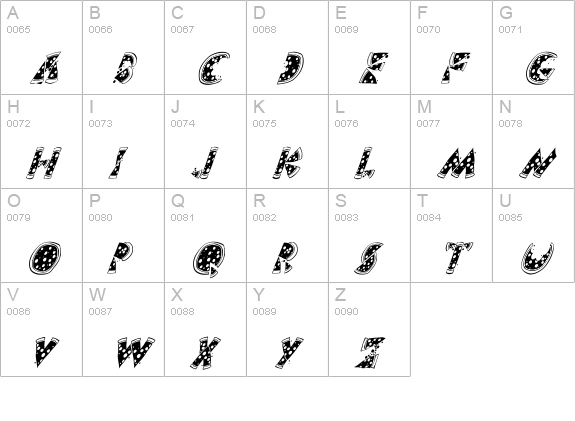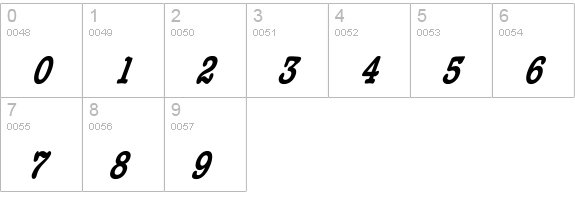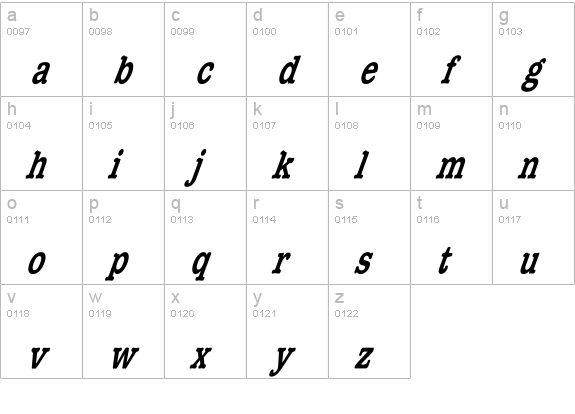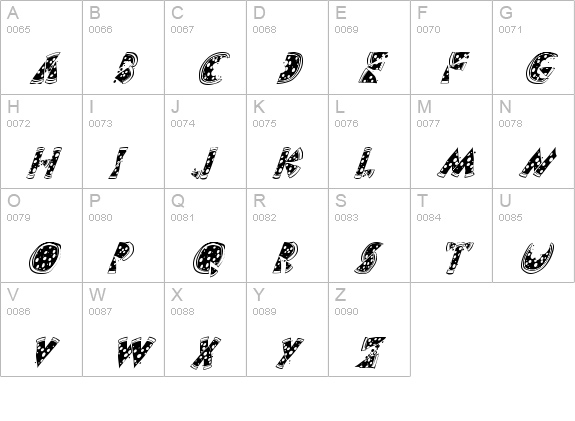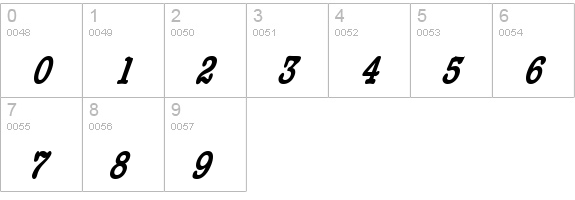
KAPizzaMunch Font Details
Introducing KAPizzaMunch, a delectable font that will satisfy your typographic cravings! This mouthwatering font is perfect for adding a touch of creativity and playfulness to any design project. Its unique and quirky letterforms will make your words pop off the page, leaving a lasting impression on your audience. KAPizzaMunch is more than just a font; it's an experience. With every letter, you can almost taste the cheesy goodness and feel the crispy crust of your favorite pizza. Each character is carefully crafted with attention to detail, capturing the essence of a delicious slice. But the best part about KAPizzaMunch? It's free! That's right, this font is freely available to download at FontsMarket.com. We believe that great design should be accessible to everyone, and that includes having access to high-quality fonts without breaking the bank. Whether you're a professional designer or a pizza enthusiast who wants to add a fun touch to their personal projects, KAPizzaMunch is here to satisfy your cravings, completely free of charge. So why settle for plain and boring fonts when you can have KAPizzaMunch? Let your creativity run wild and bring a slice of deliciousness to your designs. Download KAPizzaMunch today and get ready to make a statement with every letter you type. Your audience won't be able to resist the mouthwatering charm of this delightful font.